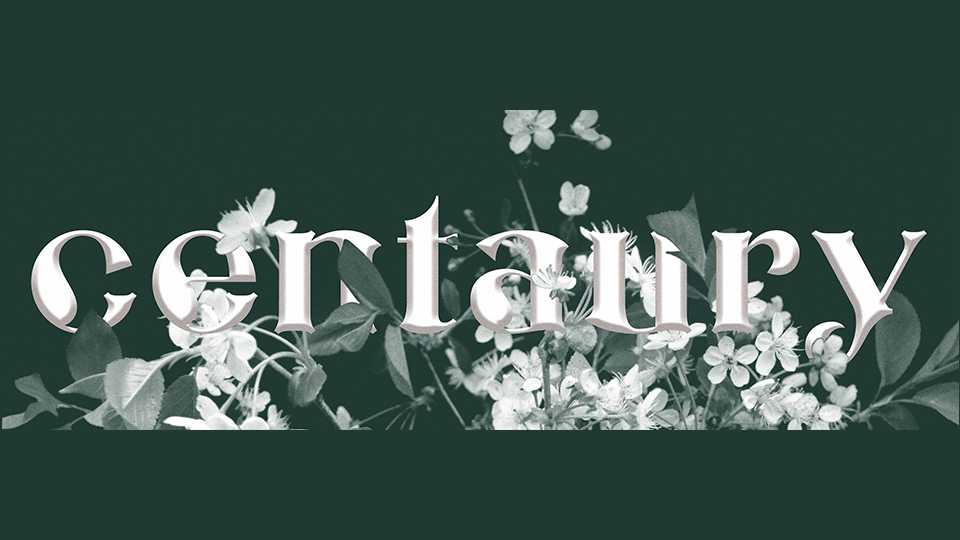
Download Centaury font family, a decorative serif typeface, a revival of a font, based on the old wood type specimen. With its elegant look, Centaury is ideal for magazines, vintage lettering, logos, branding design, packaging and advertising.